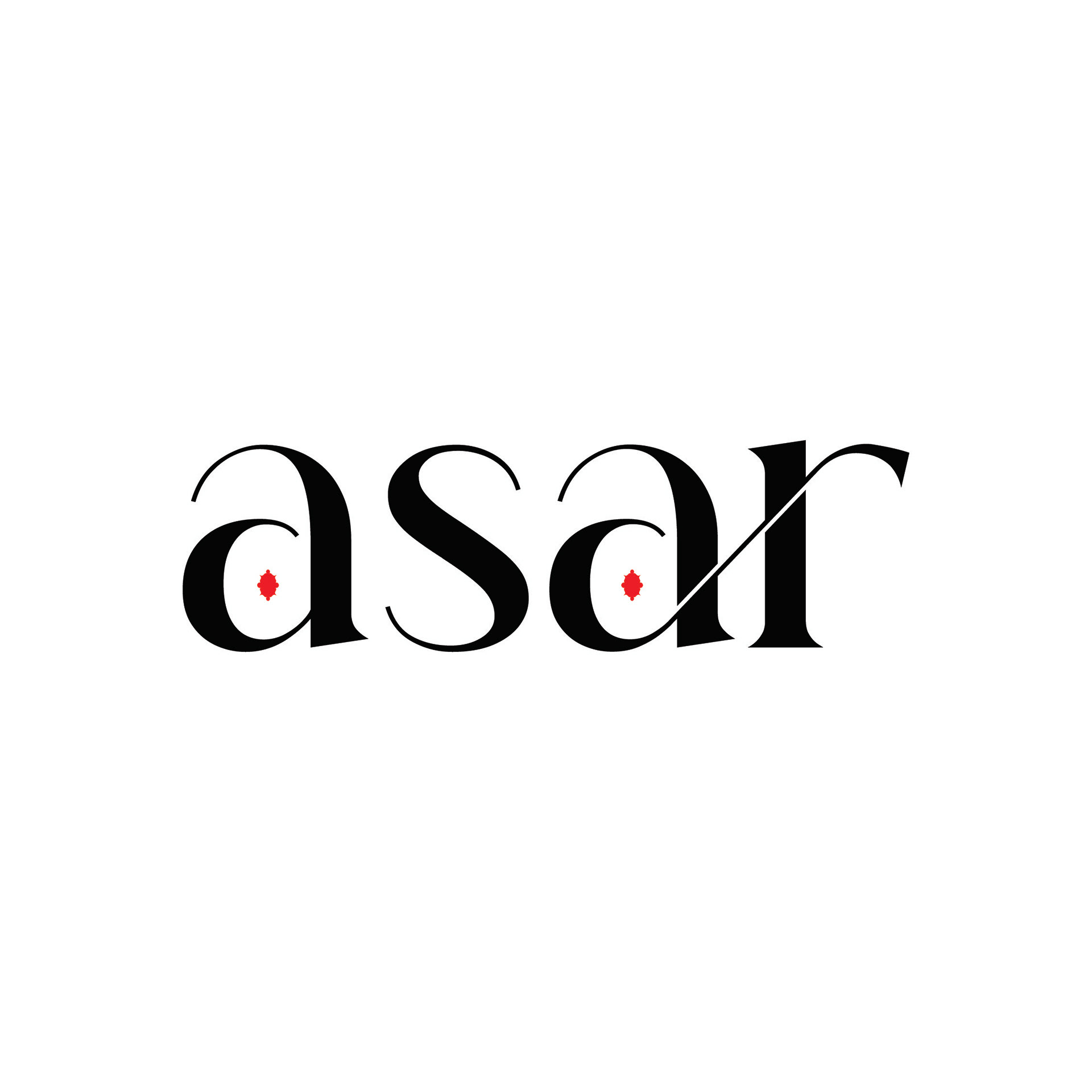
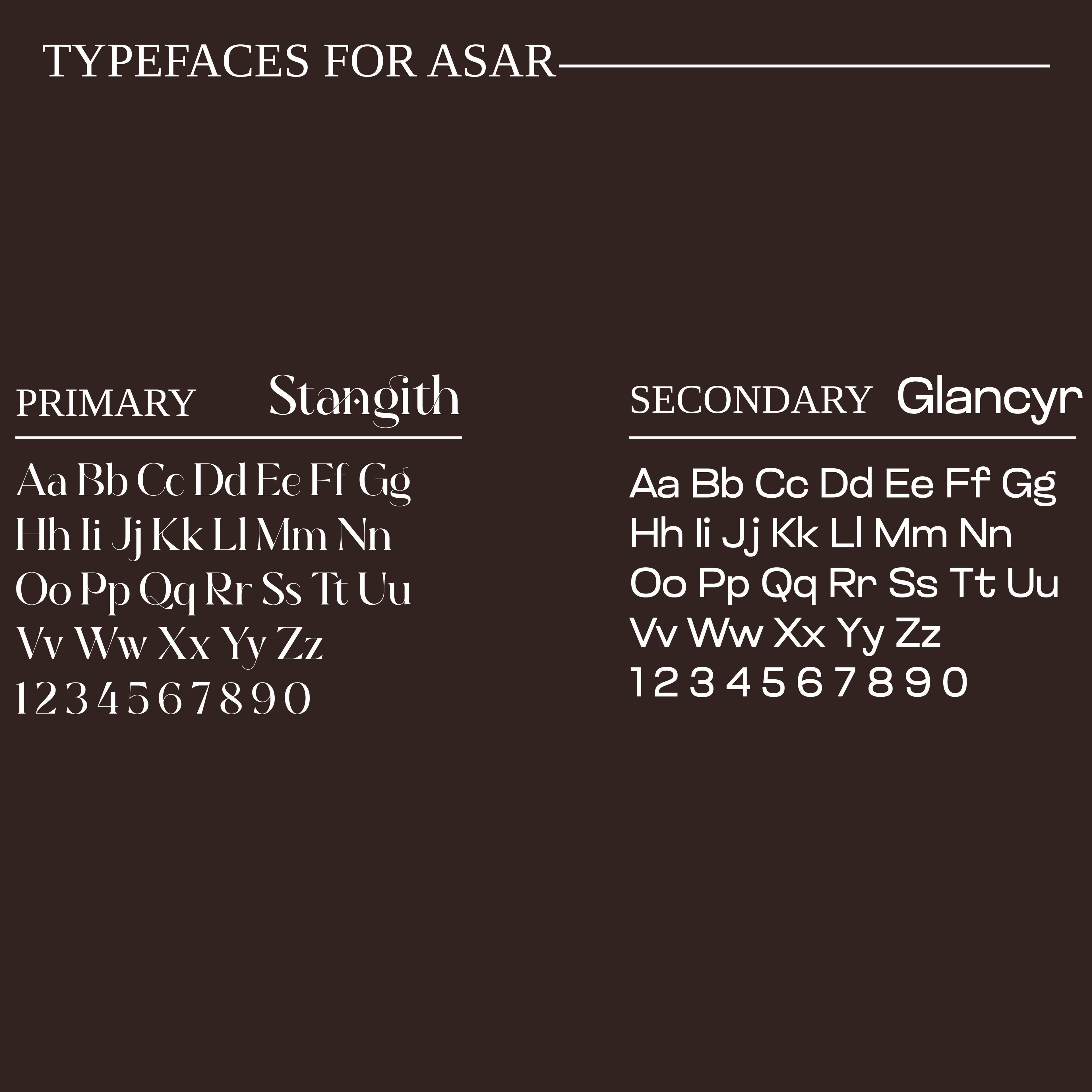
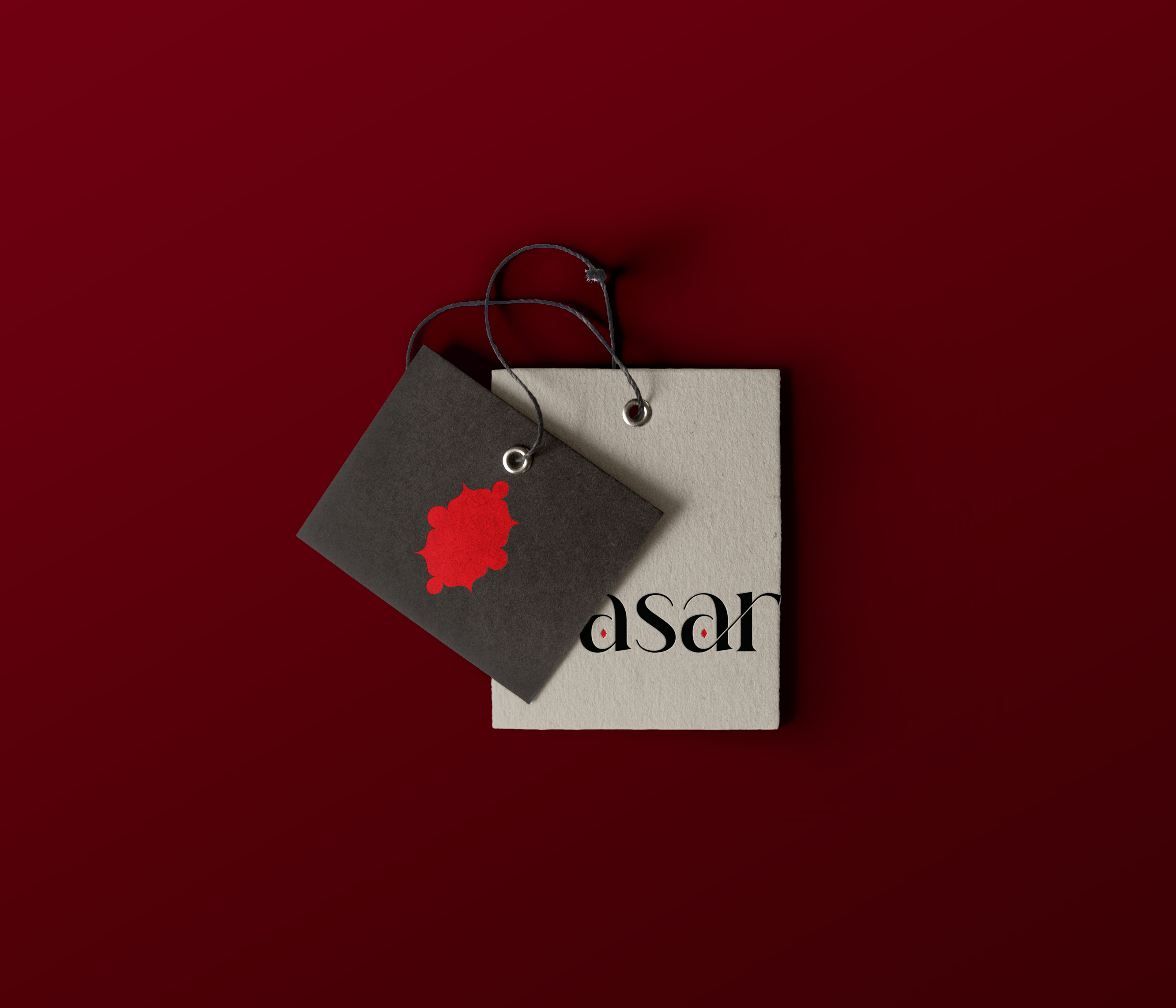
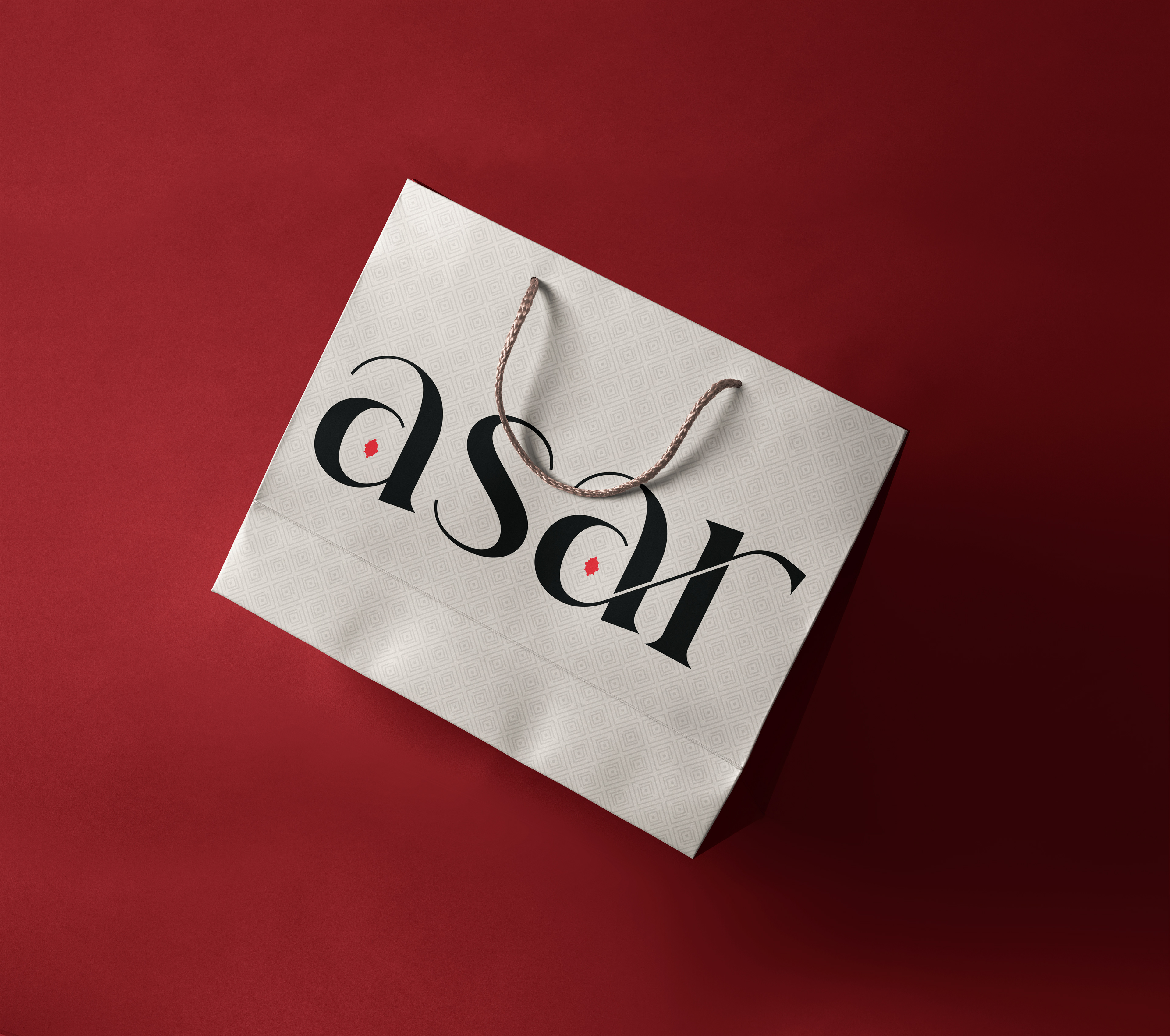
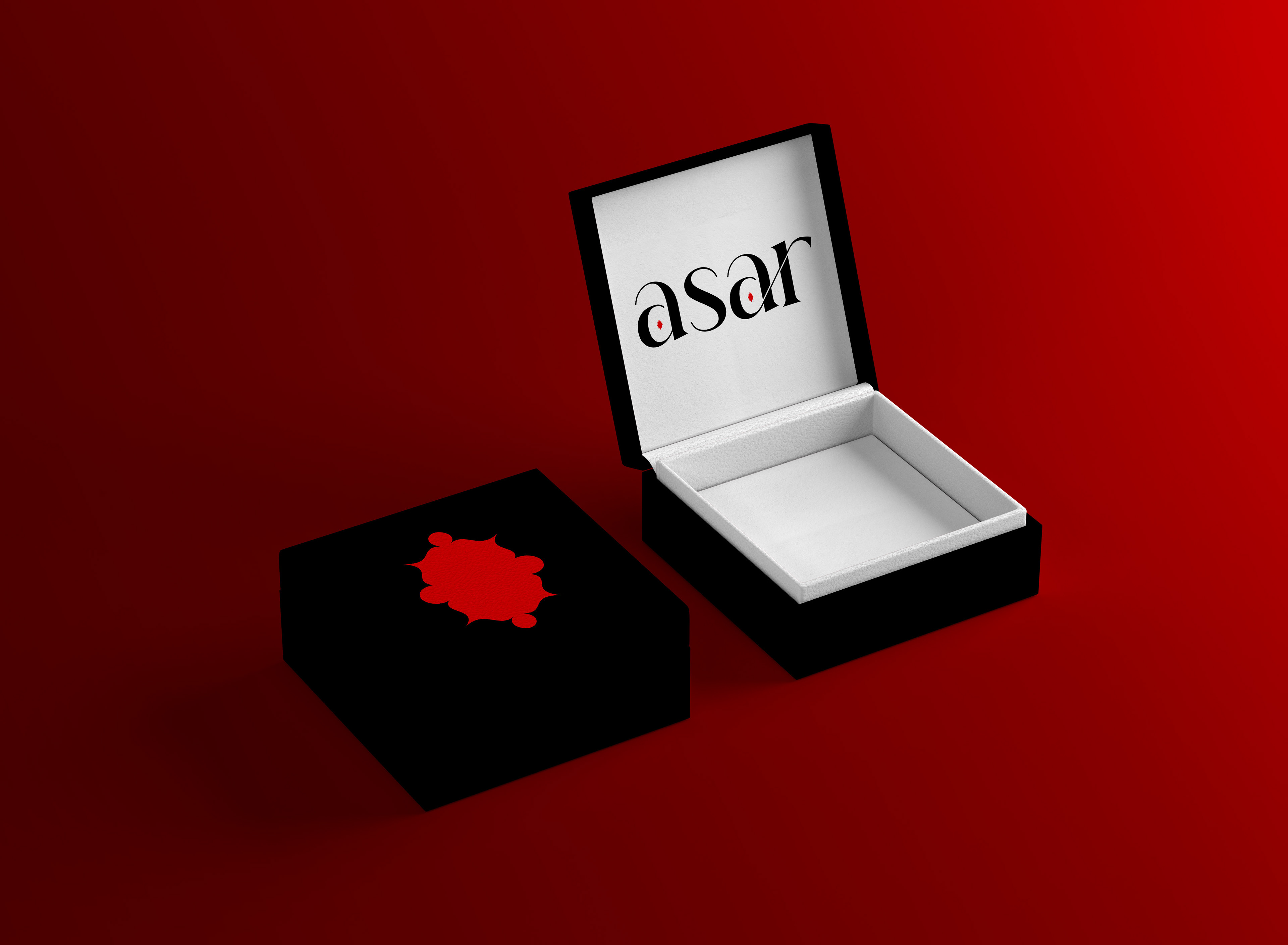
BRAND IDENTITY FOR "ASAR" Logo Design: The brand name “asar” is rendered in lowercase letters using a modern, sans-serif typeface. The first ‘a’ is stylized with an extended curve that loops above all the letters and underlines the entire word before curling up at the end. This unique design element likely serves as a recognizable symbol for the brand. Typography: The typography section showcases different font weights and styles associated with the brand. The chosen typefaces convey a sense of sophistication and professionalism. Color Palette: The provided color codes suggest a limited color scheme for the brand. These colors exude elegance and refinement. Application Mockups: The logo is demonstrated across various materials such as product label, shopping bag and gift box. This highlights its versatility and professional appearance. Remember, brand identity is crucial—it’s the visual representation that communicates your brand’s essence to the world. “asar” seems to embrace simplicity, elegance, and a touch of uniqueness. 🌟